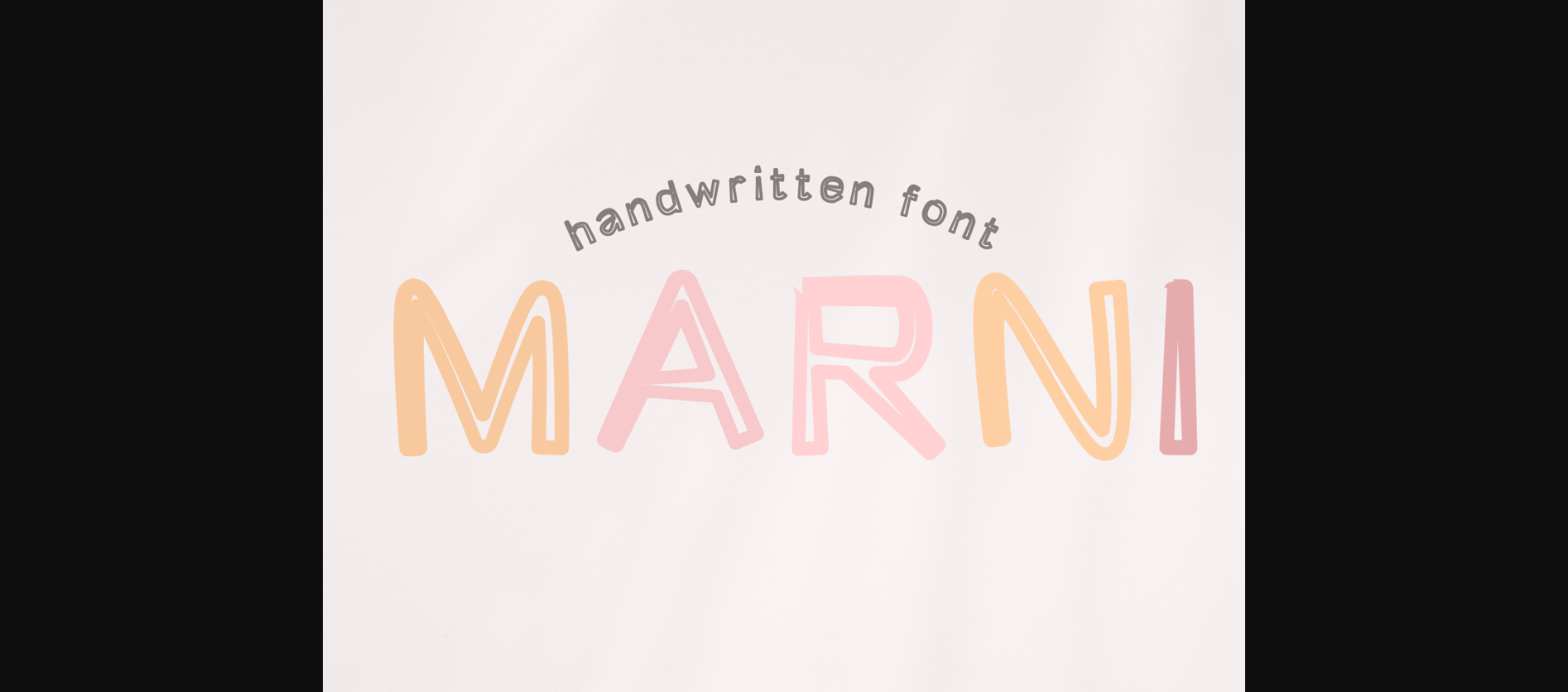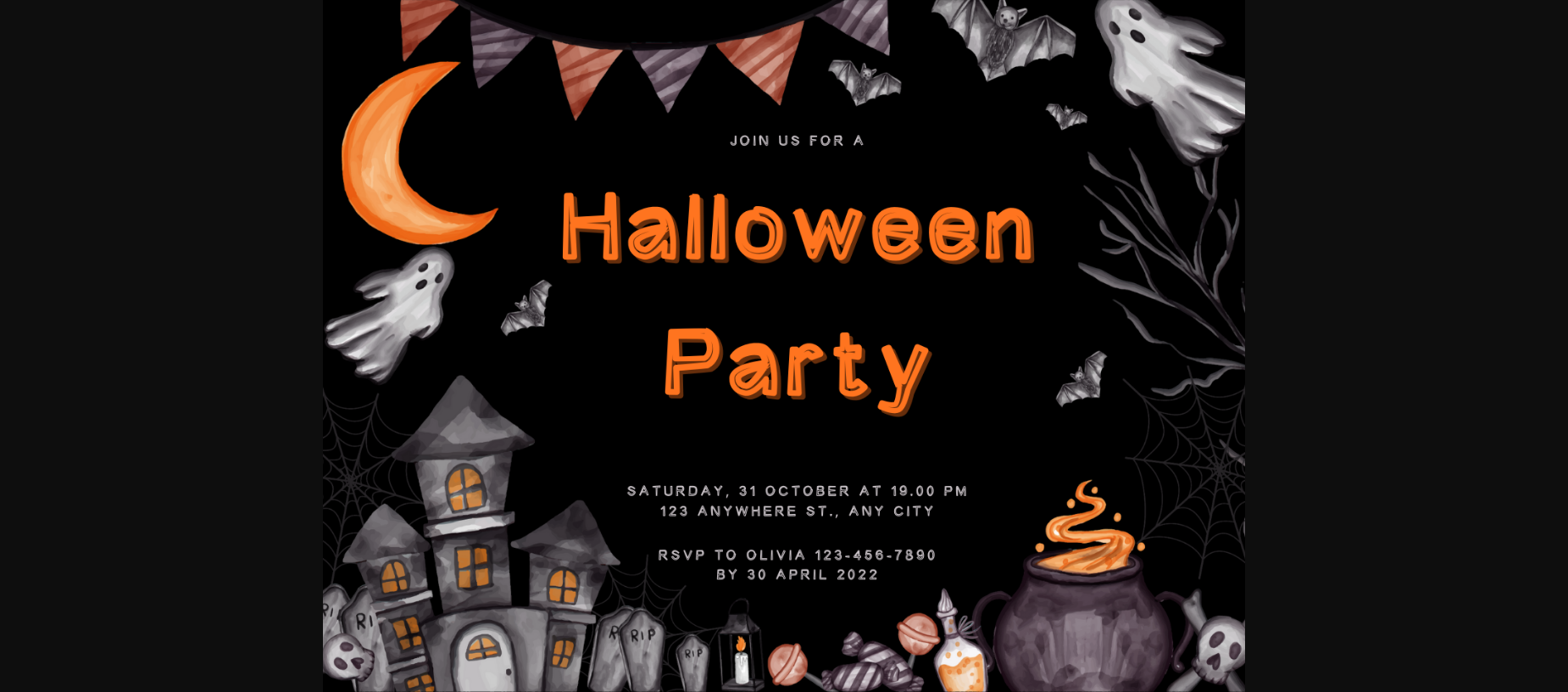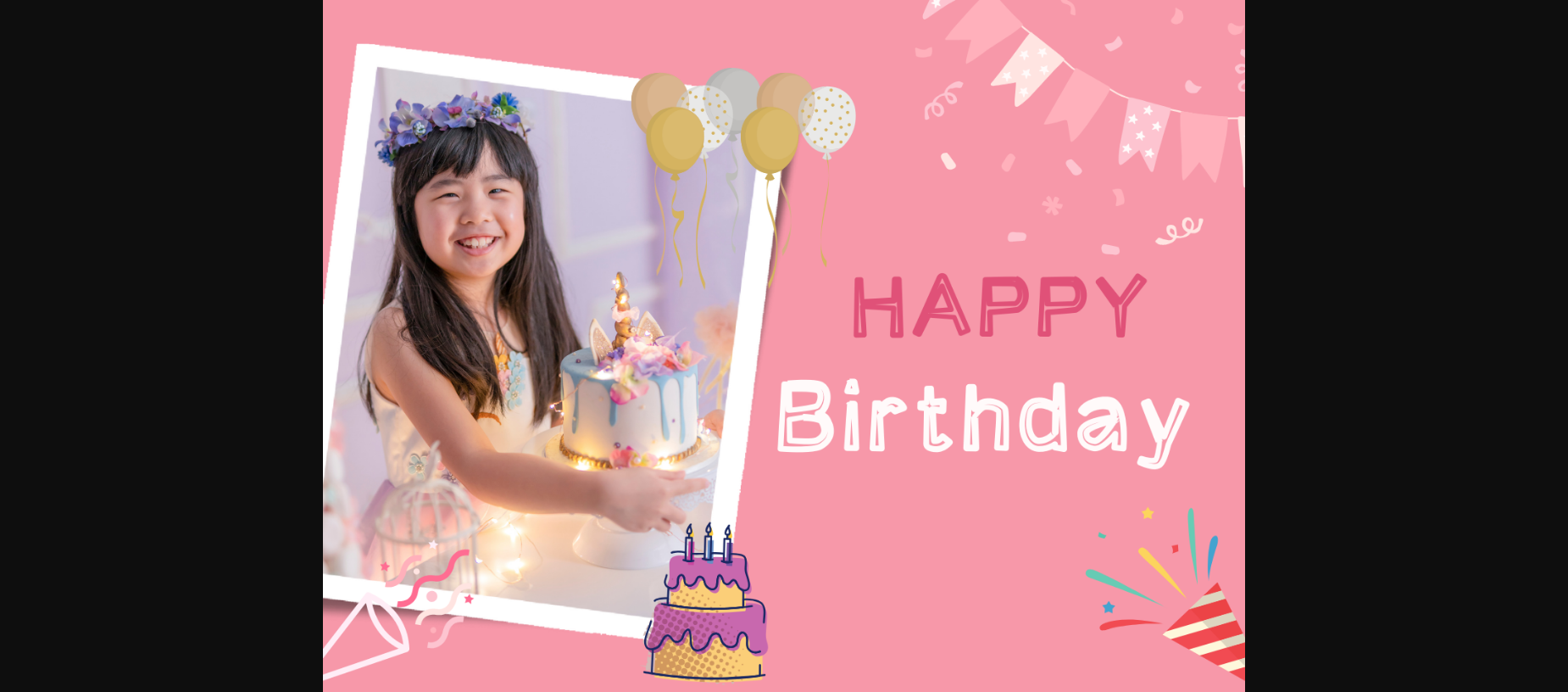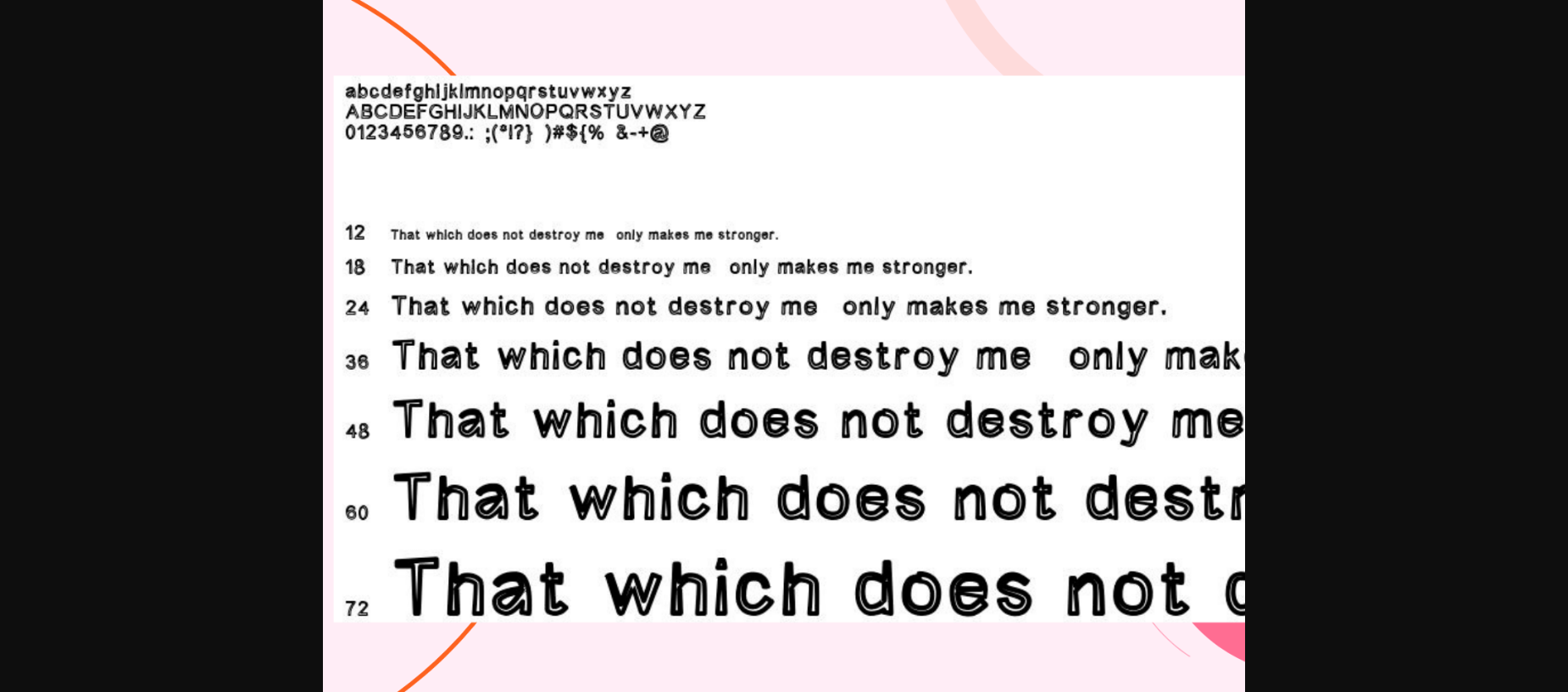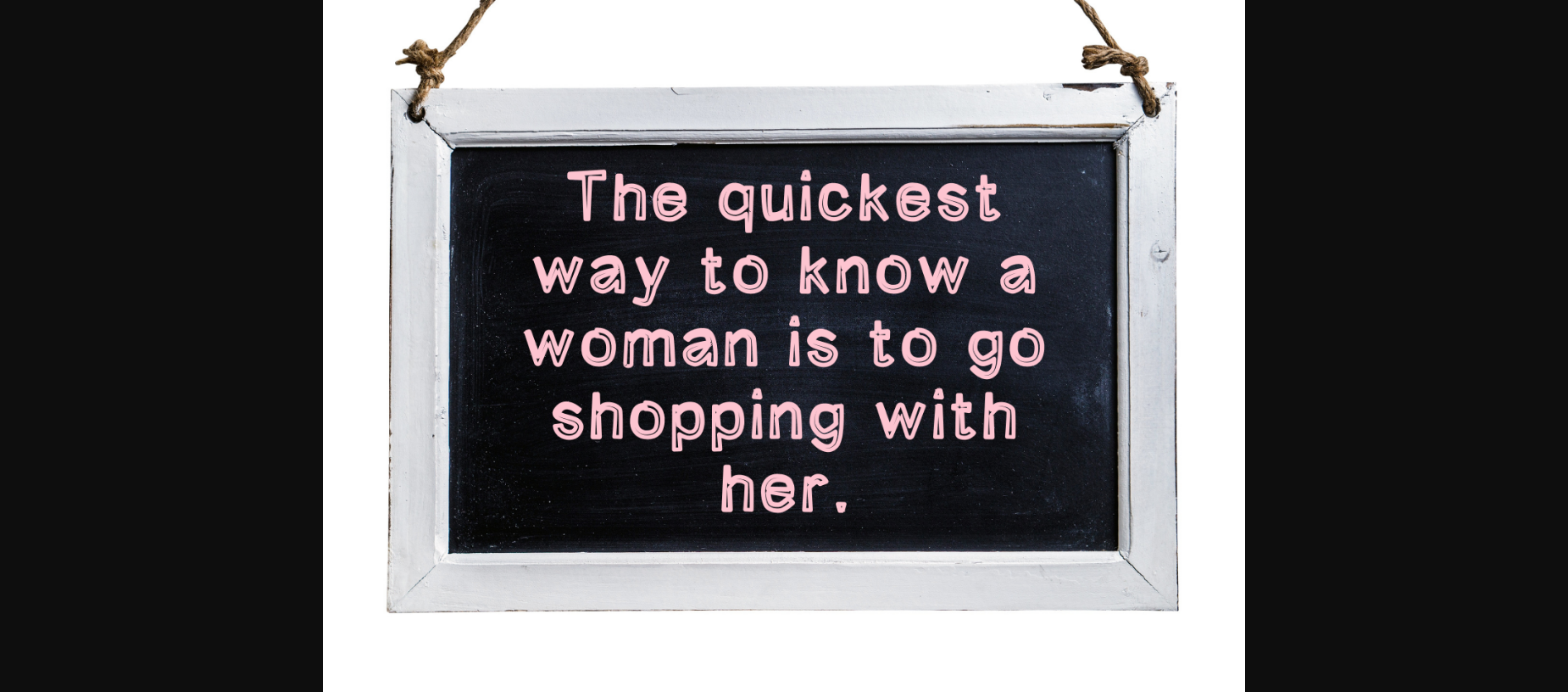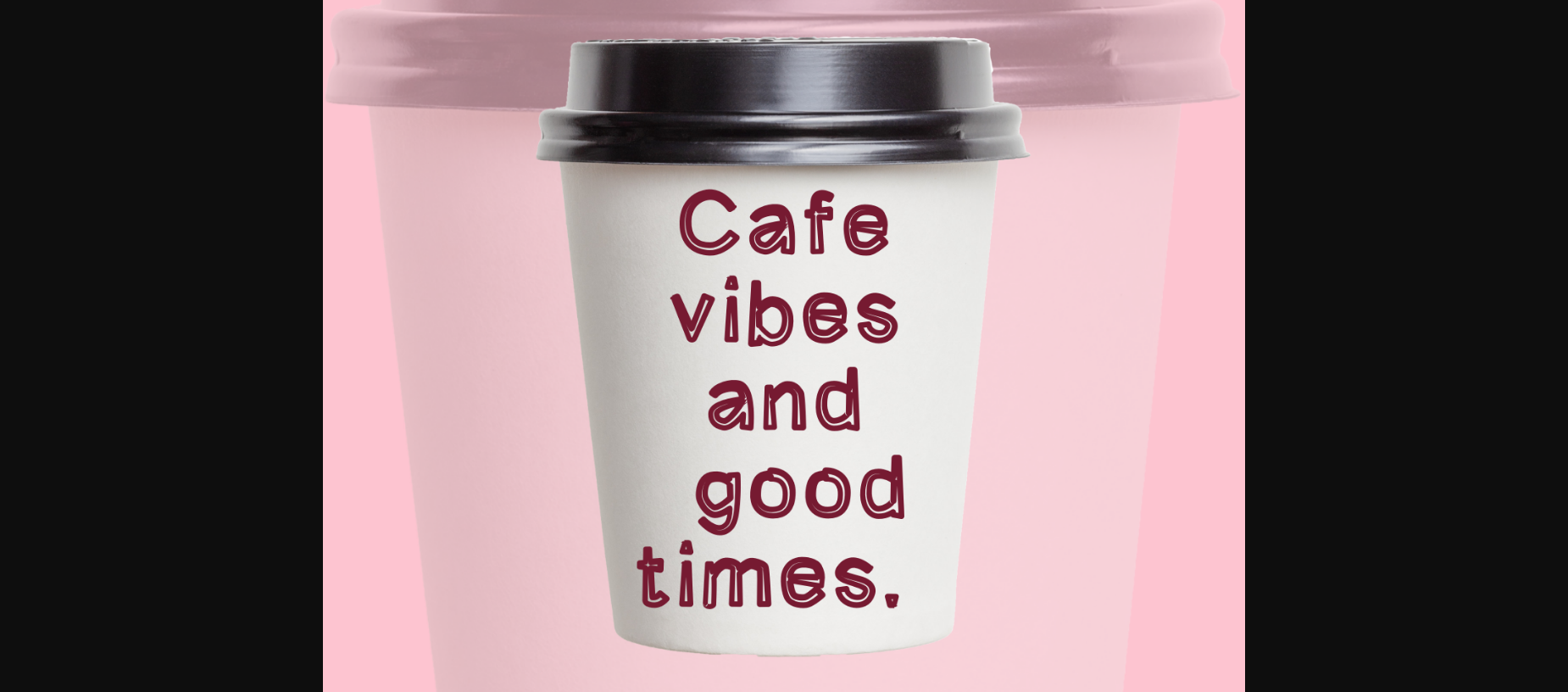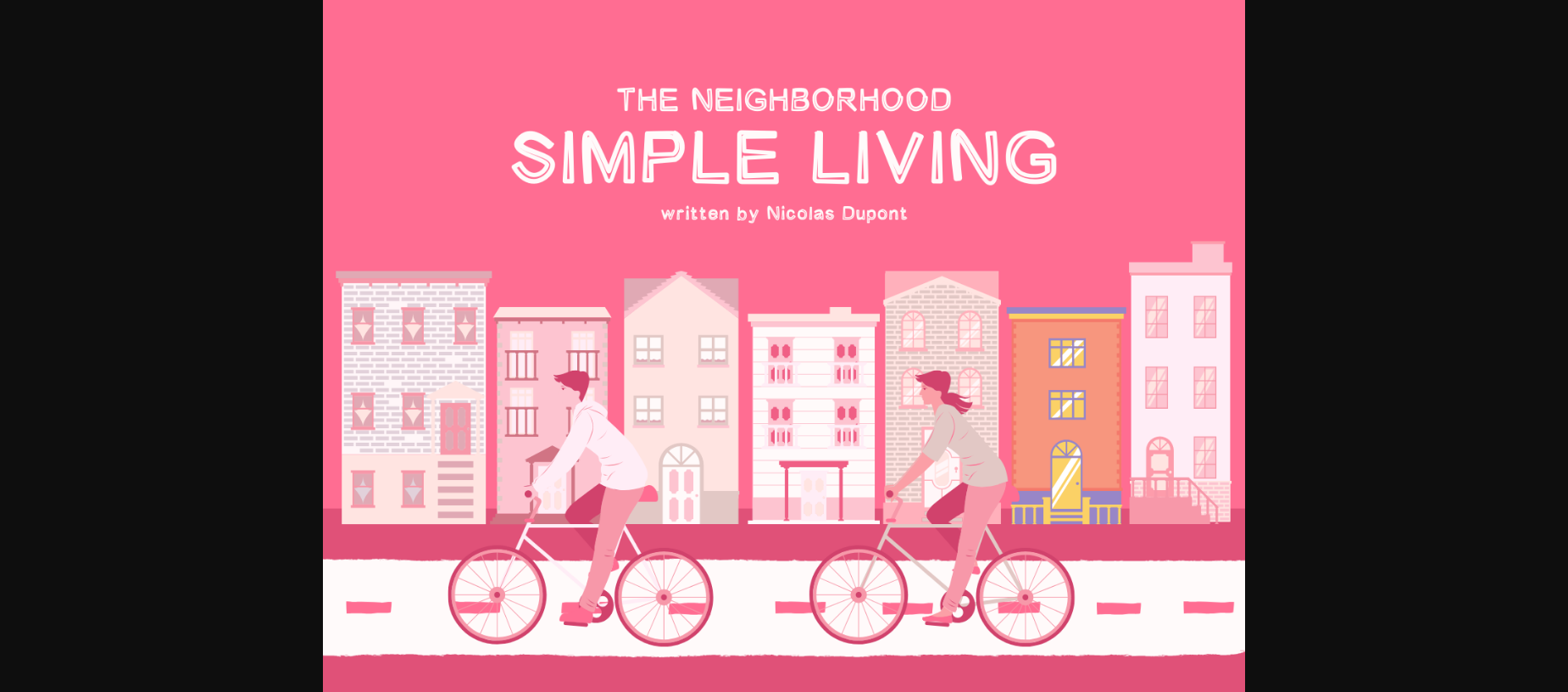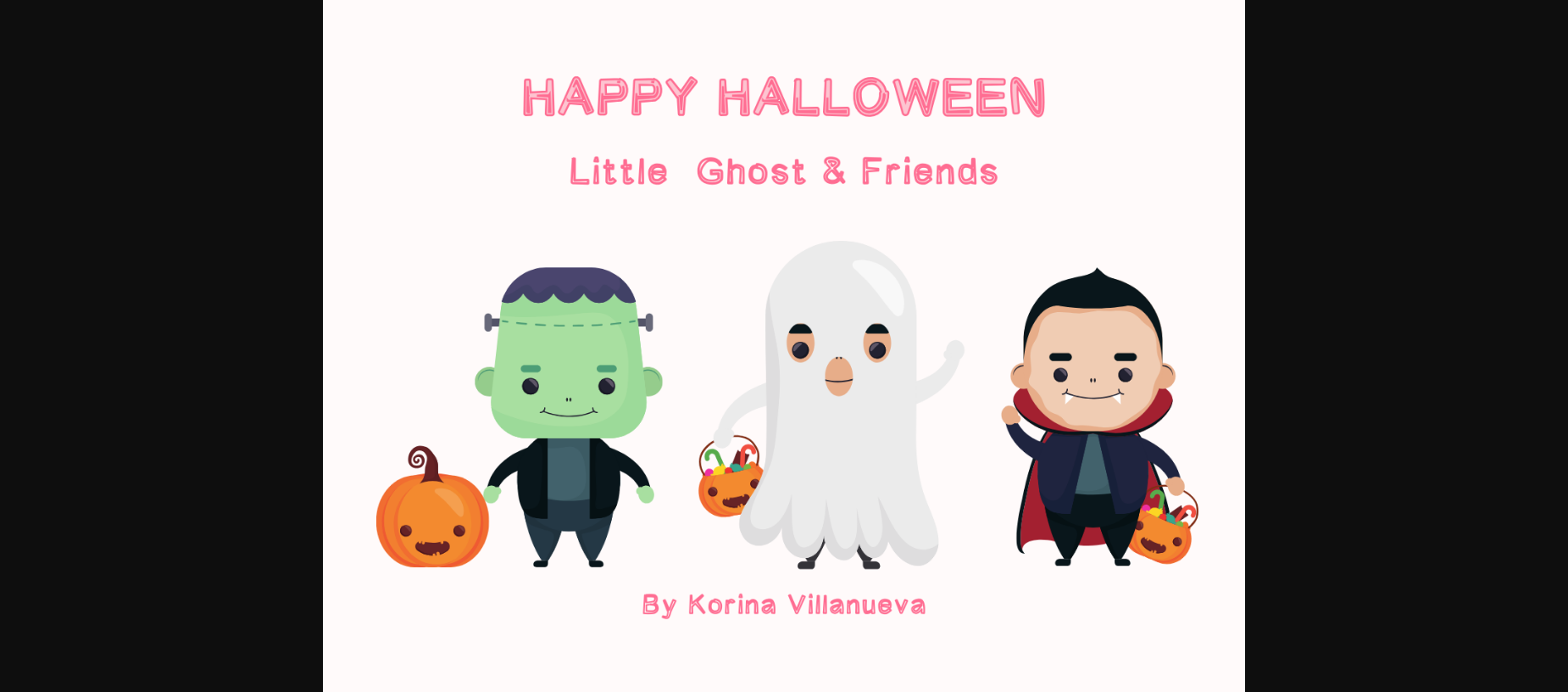
Marni Font
About Marni Font
Marni has its own unique identity. It can be used to add distinctiveness to your work, whether it is incorporated into letters, designed for greeting cards, wedding cards, quotes, Goodnotes, planners, handwritten notes, logos, or used by teachers, and more, giving your letters a one-of-a-kind appearance. With this specially crafted font, your work will be enhanced by its novel design. With a variety of artistic fonts to choose from, you can select the one that best suits your preferences and needs.